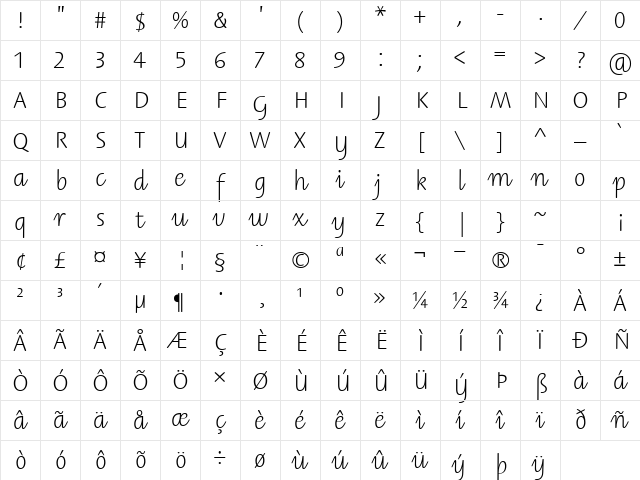
Complete ABC Schrift Drei EF Regular glyph index. Displaying only characters natively supported by ABC Schrift Drei EF Regular font.
ABC Schrift Drei EF is a composed and adaptable typeface that performs quietly and consistently across a wide range of design contexts.